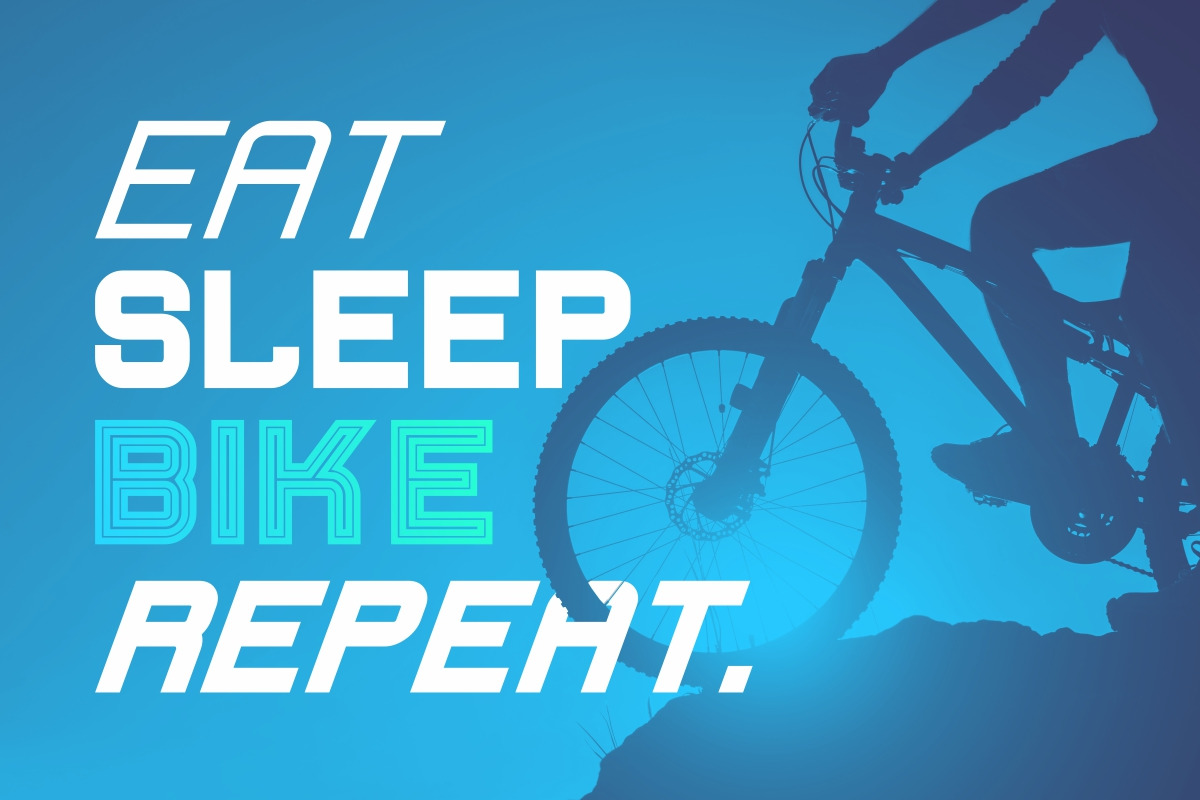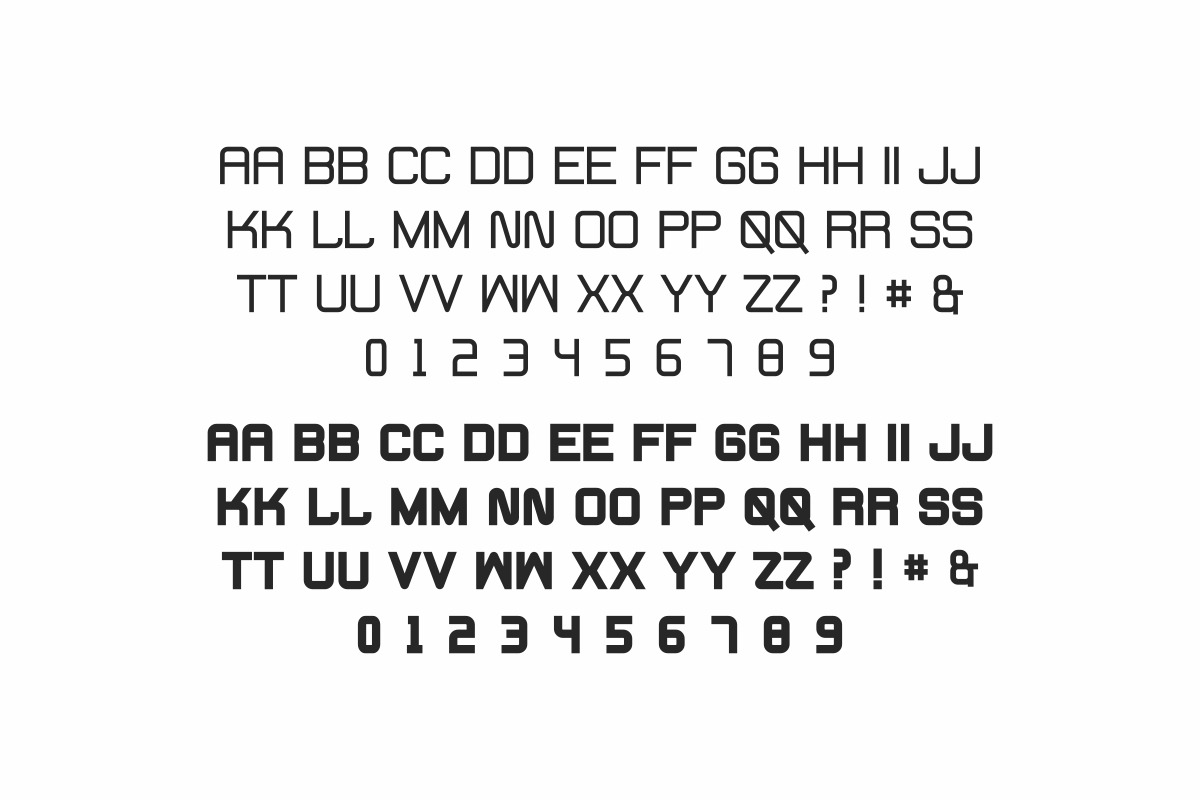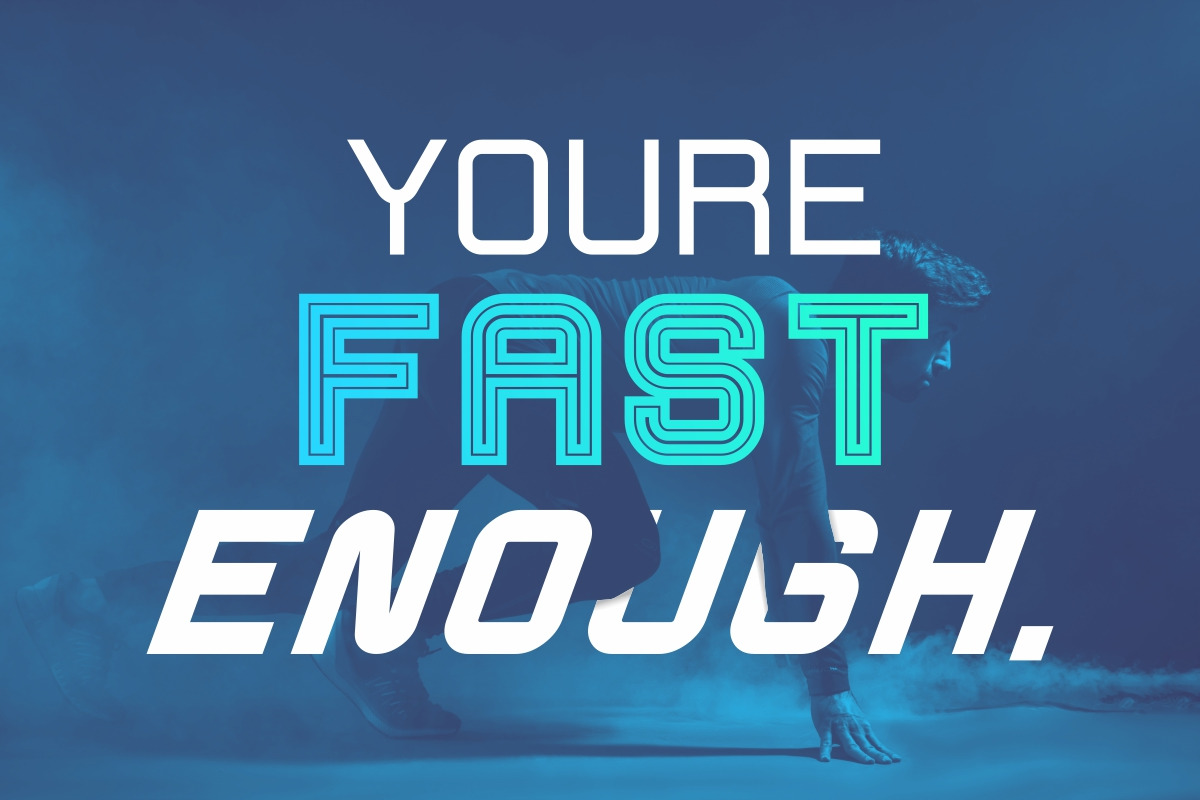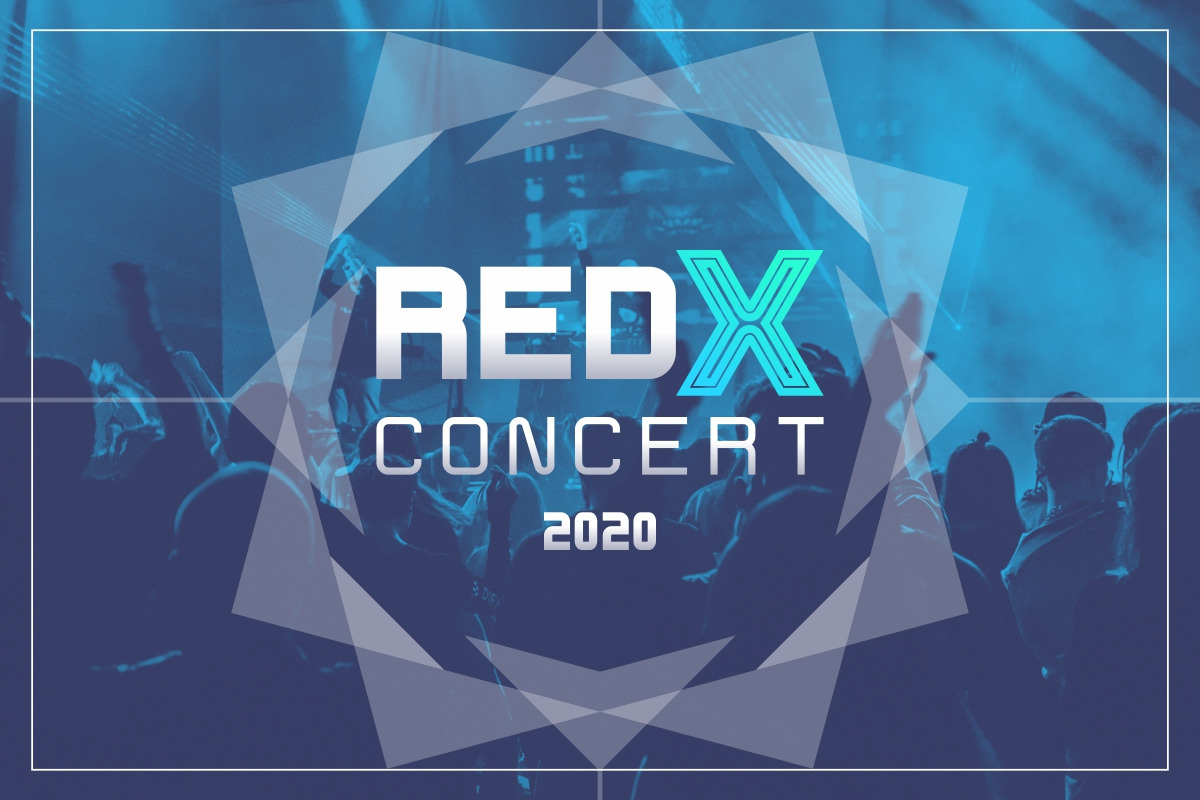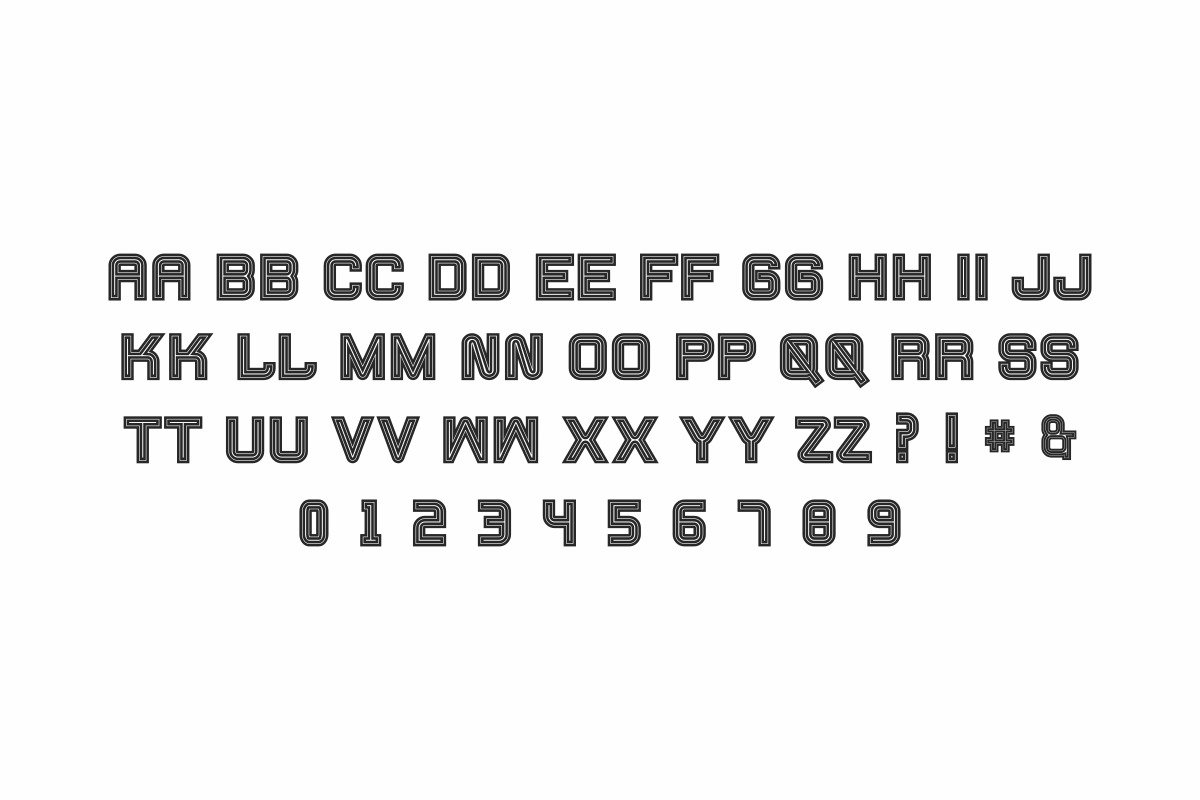
Fearcheer Sans Serif Display Font
Fearcheer is a sans serif display font. Originally made by NihStudio Font Designer : Fajar Saepul and Suci. On the package you will get :
Handcrafted here in our Studio , Indonesia. Fearcheer will be great for any projects (require extended license) including : branding, logo, stationery, business card, signage, flyer, brochure etc.
The Fearcheer has five styles : Regular, Italic, Outline, Bold and Bold Italic